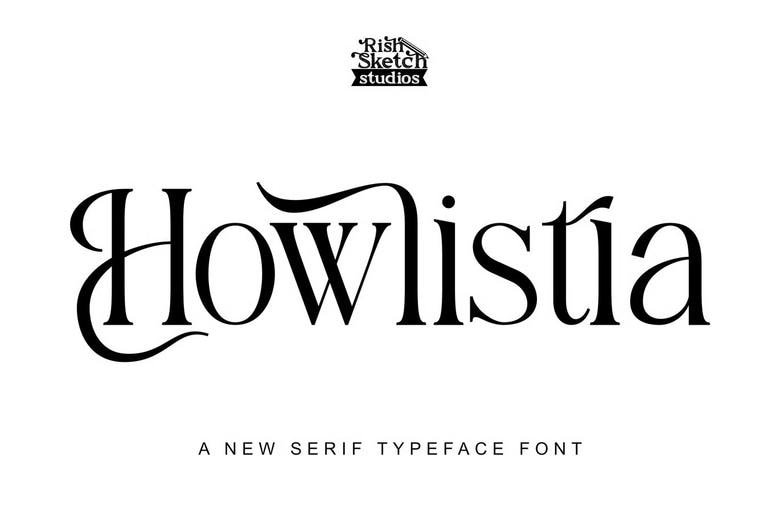
Howlistia Font
Howlistia is a Modern serif font by Rishsketch Studios is a high quality Modern serif font that is ideal in any project that needs a unique and high quality touch.
Howlistia Serif Font